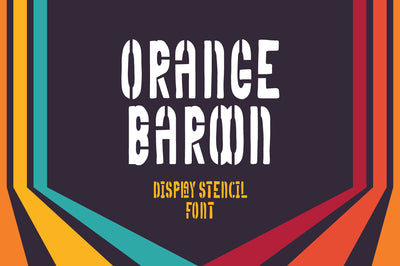
Orange Baroon - Stencil Display Font
Orange Baroon - Inspired by typeface on 70s era, Orange Baroon has the vintage font & retro with stencil look. with 2 font style, It's super easy to use stencil effect with Orange Baroon family font.
Two style Font: Regular & Display
Orange Baroon is perfect for vintage & retro style product, branding, logo, invitation, stationery, product packaging, merchandise, monogram, blog design, game titles, cute style design, Book/Cover Title and more.